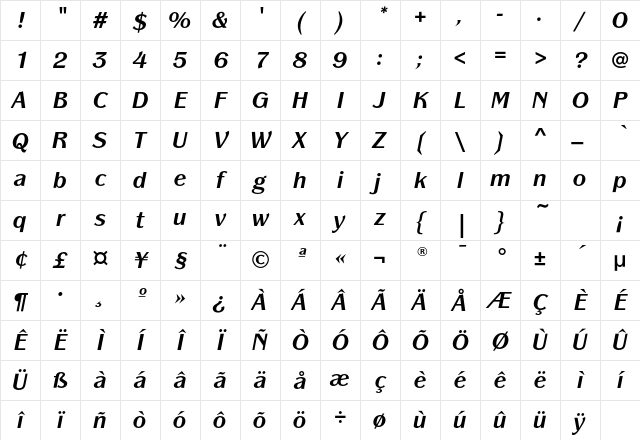
PanacheEF-BoldItalic Regular
Design Context for PanacheEF-BoldItalic
PanacheEF-BoldItalic is a composed and adaptable typeface that performs quietly and consistently across a wide range of design contexts. The slanted form adds forward momentum and visual energy. Its bold stroke weight gives it real presence on the page.
Pro Tip: Use PanacheEF-BoldItalic for emphasis, pull quotes, and subheadings where its slanted energy can add rhythm to the layout.